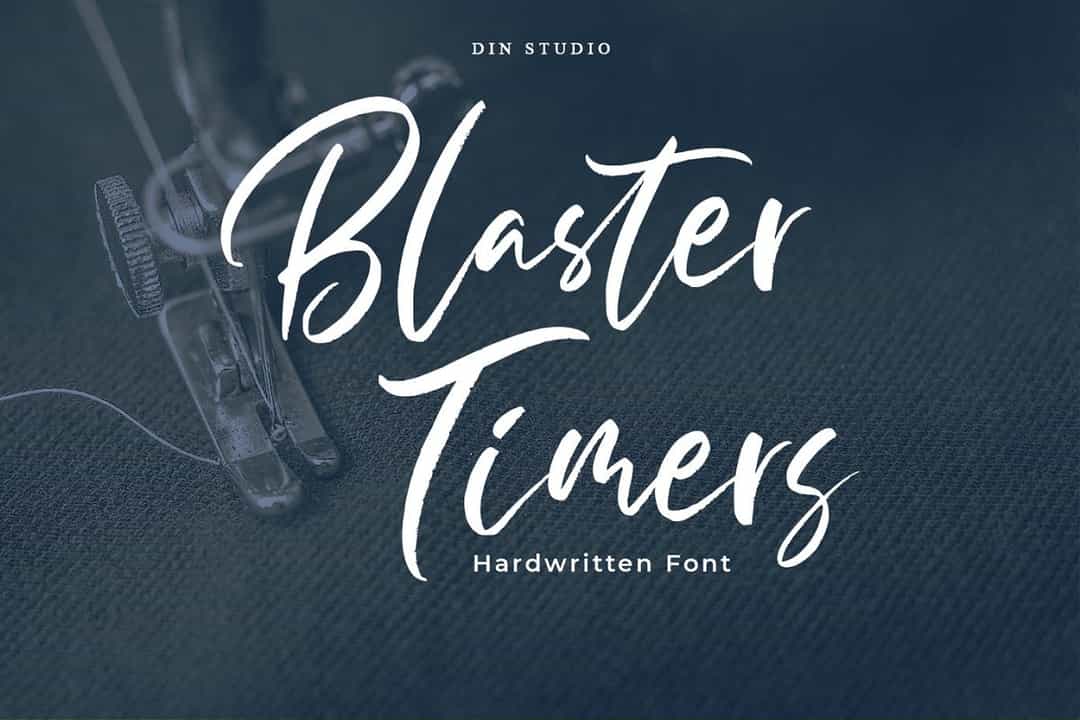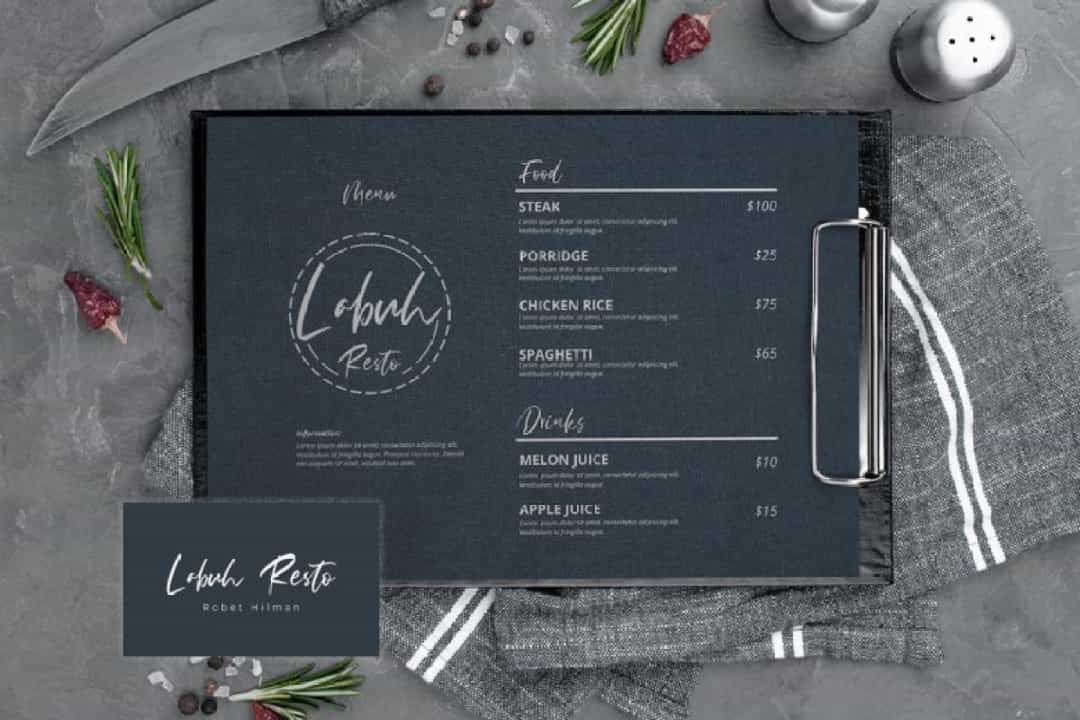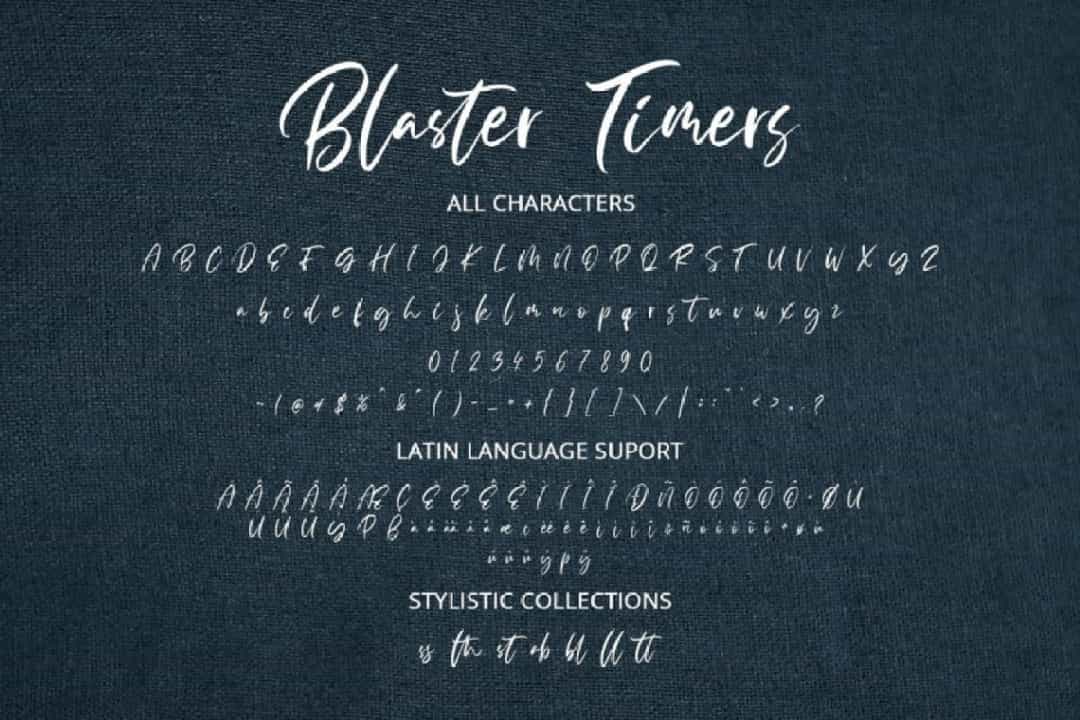
Blaster Timers is a beautiful brush font which is perfect for branding projects; A font that is easy to use for any professional. In its freestanding form, each letter is also beautiful.